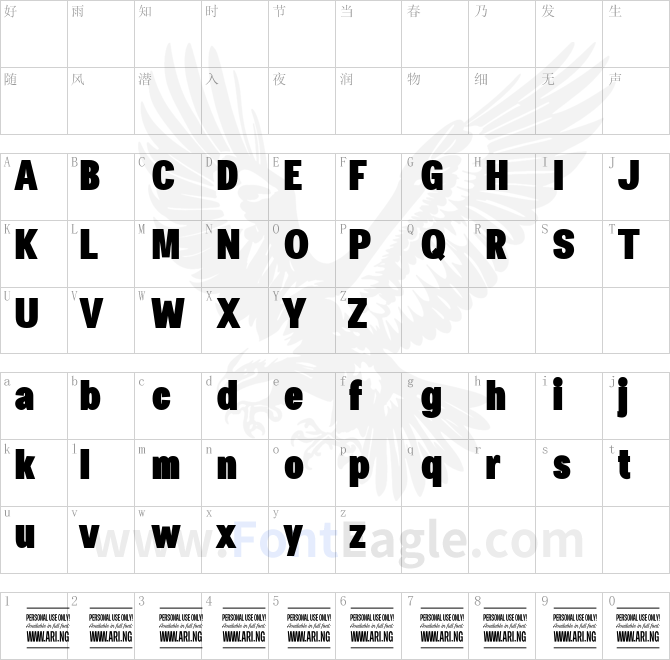
Specify PERSONAL Condensed Black.ttf Font Image
Specify PERSONAL Condensed Black.ttf Base Font Information
- Font name:Specify PERSONAL Condensed
- Font Subfamily ID:MnsGrebck: Specify PERSONAL Condensed Black: 2016
- Font Full Name:Specify PERSONAL Condensed Black
- Postscript:SpecifyPERSONALCondensed-Black
Specify PERSONAL Condensed Black.ttf Characters Sample